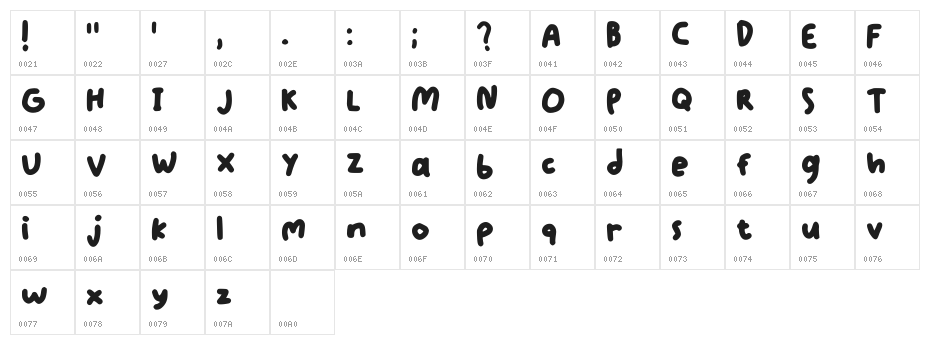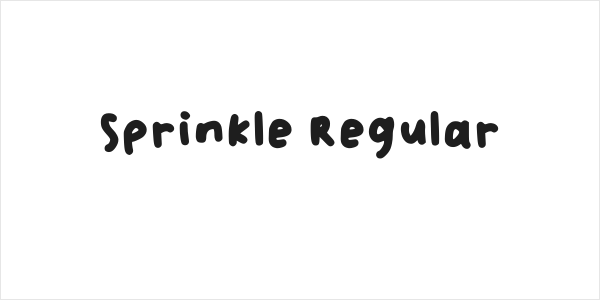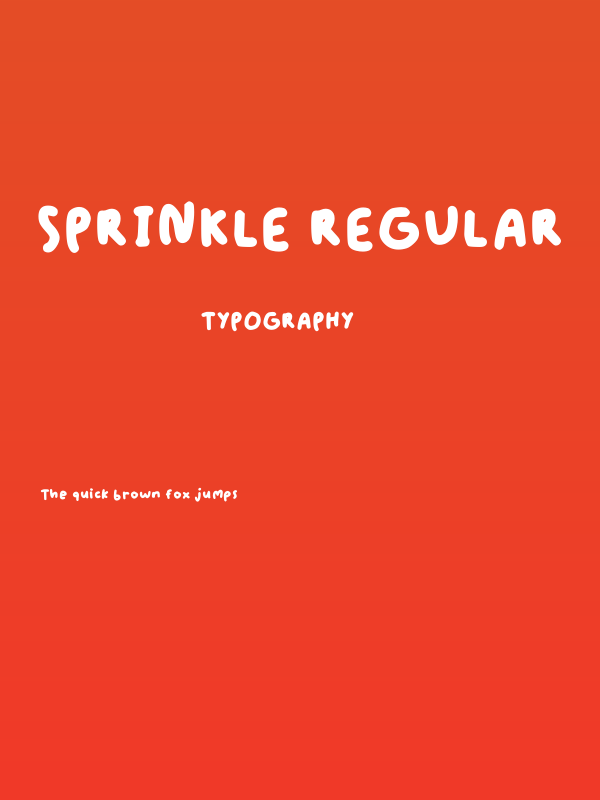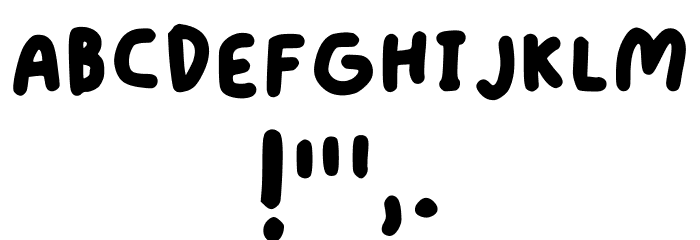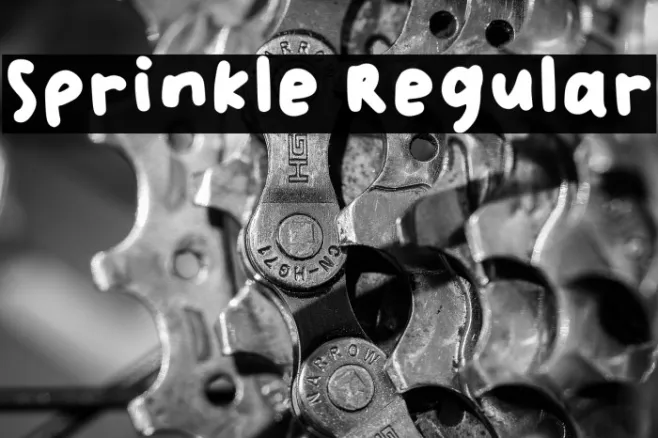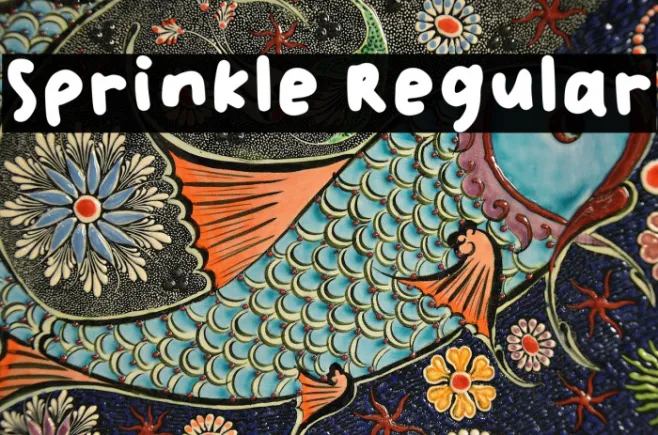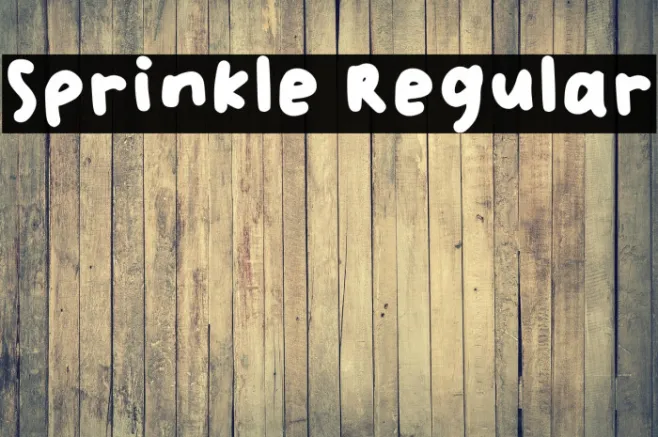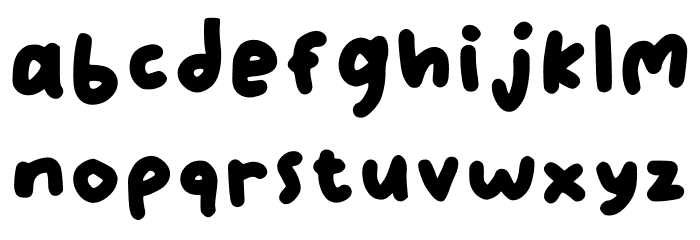
Sprinkle Regular Font
Sprinkle Regular Description
This playful and whimsical font features rounded, bold characters with a hand-drawn appearance. The letters are slightly irregular, giving it a casual and friendly feel. The strokes are thick and consistent, creating a strong visual impact. The font includes both uppercase and lowercase letters, as well as a selection of punctuation marks. Its unique style makes it stand out, perfect for projects that require a touch of fun and creativity.